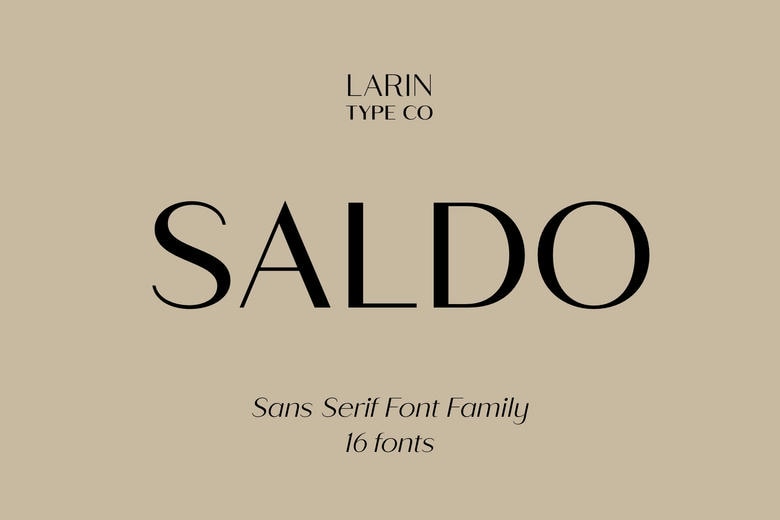
Saldo Font
Saldo is a modern and clean sans-serif typeface made to be the most readable and legible font. Saldo with its clean and crisp lines is ideal to any project where a professional and sophisticated appearance is needed.
It is a minimalistic design and can fit into all kinds of places, such as business documents, branding and marketing documents. The Saldo font is highly recommendable where a designer wishes to have a modern and classic font.
Saldo Sans Serif Font Family